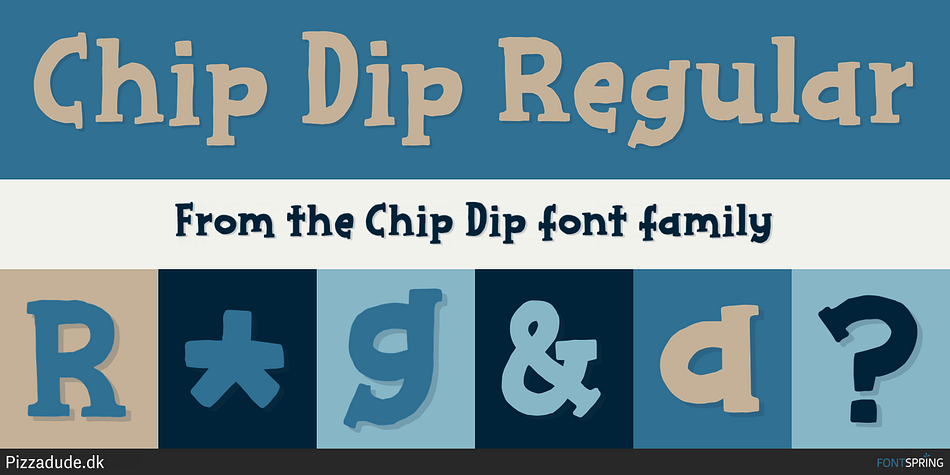
Chip Dip Regular
Designed by Jakob Fischer, Chip Dip is a hand display and hand drawn font family. This typeface has two styles and was published by Pizzadude.dk.
A simple and uneven handmade brush seriffed font. Great for that extra dip your handmade looking designs need! ;)